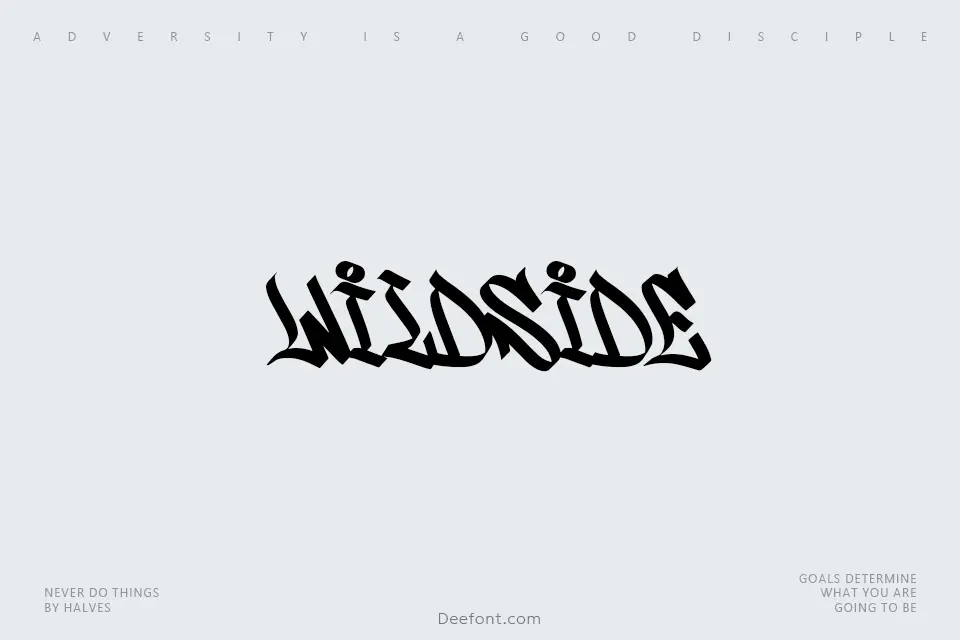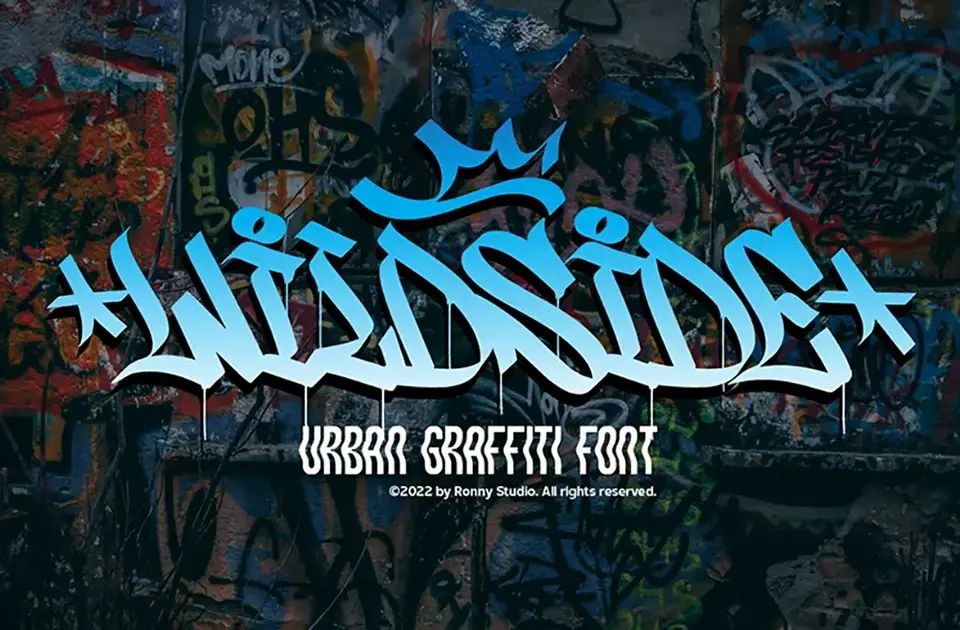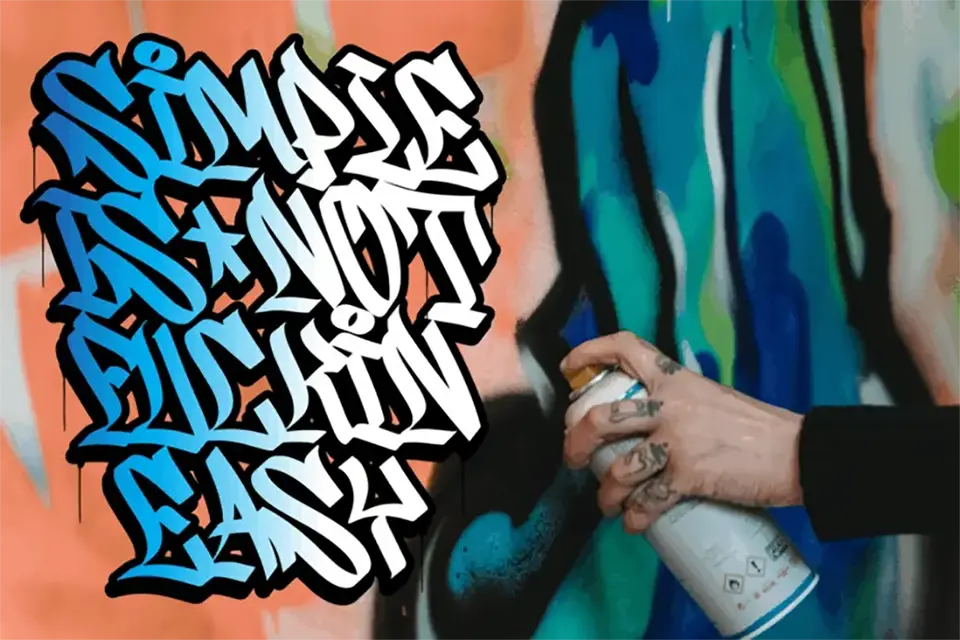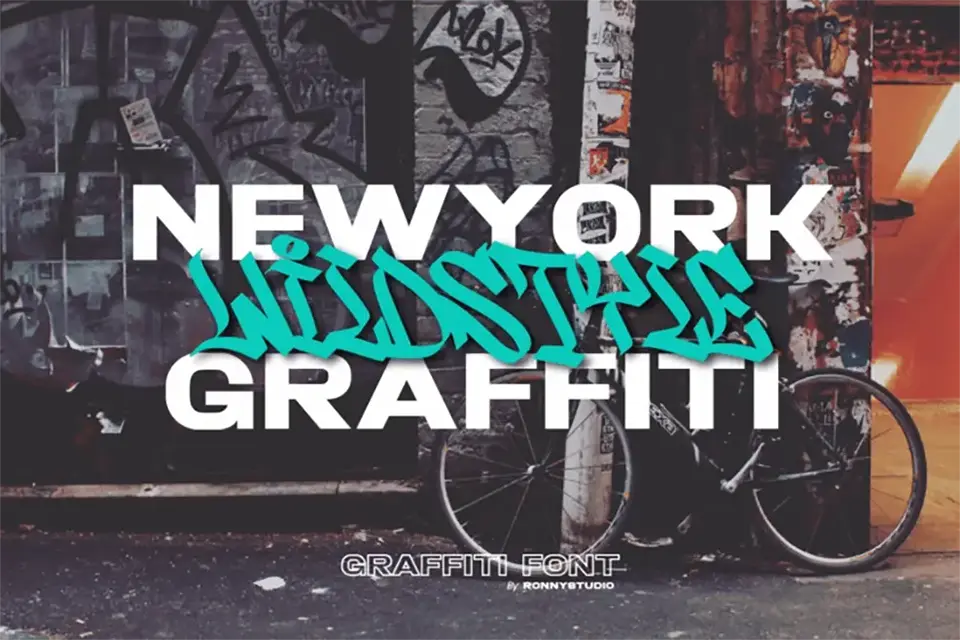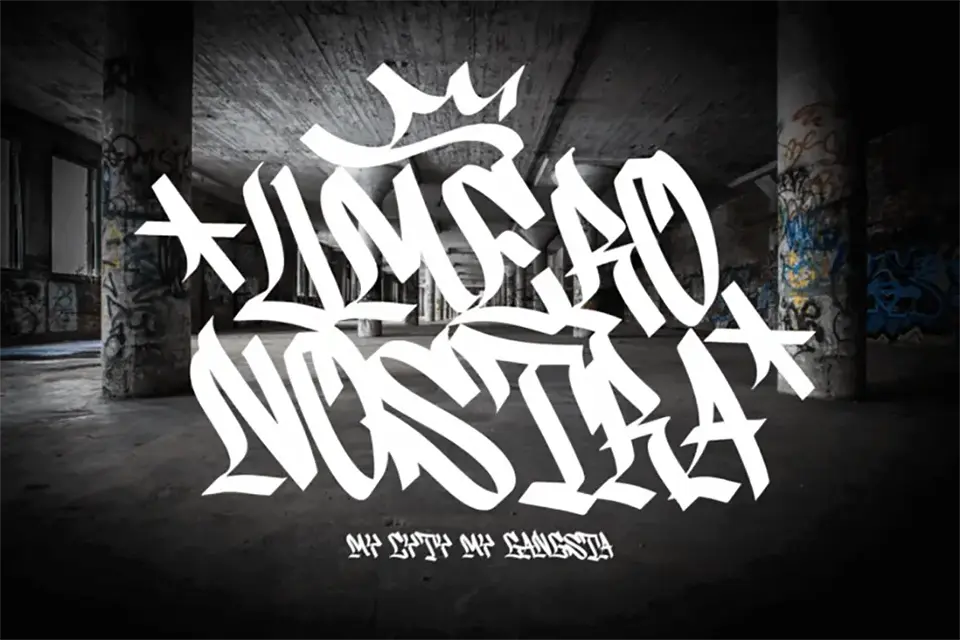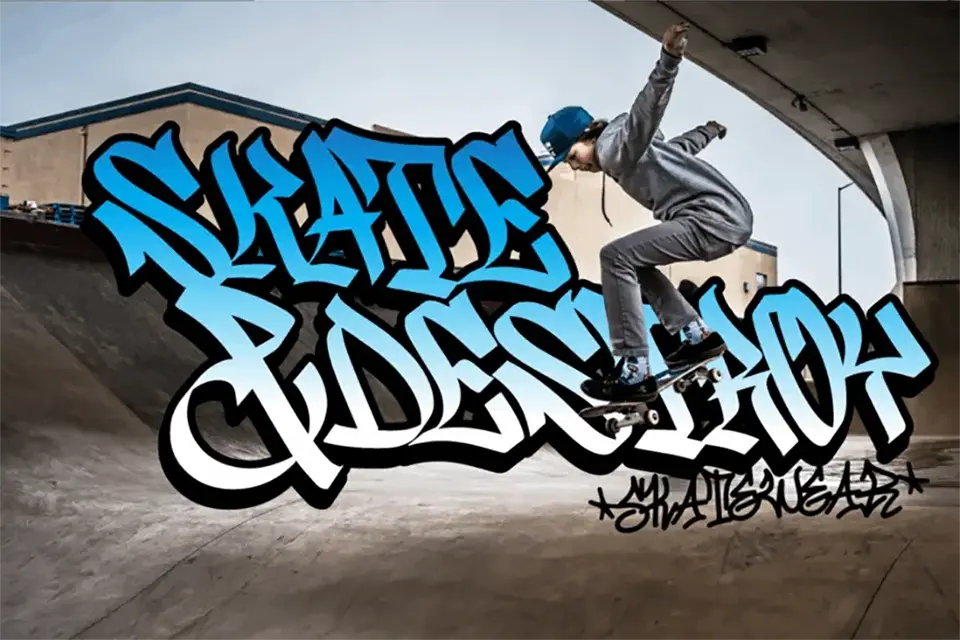
Wildside Font
Wildside is a bold graffiti-inspired display font that draws its roots from street art and urban calligraphy. With its distinctive character and expressive strokes, this typeface delivers authentic street energy perfect for headlines, branding, posters, and creative projects. The font features 241 glyphs and supports multilingual characters, making it ideal for designers seeking to add urban flair and authenticity to their work while maintaining strong readability and contemporary appeal.